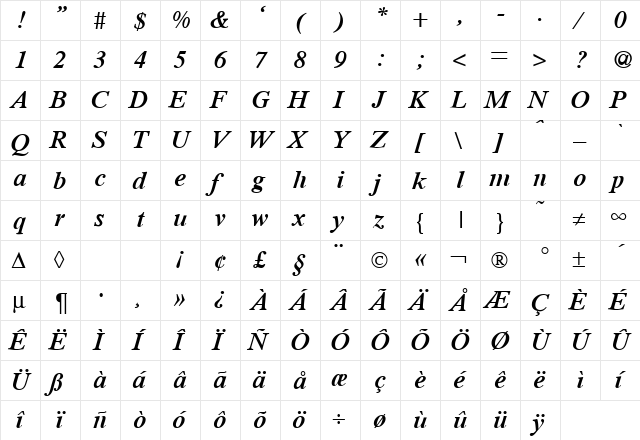
RomanInserat RegularItalic
Design Context for RomanInserat Typeface
RomanInserat offers clean, dependable letterforms without strong stylistic allegiance, making it a practical choice for designers who need flexibility. The slanted form adds forward momentum and visual energy.
Pro Tip: Use RomanInserat for emphasis, pull quotes, and subheadings where its slanted energy can add rhythm to the layout.